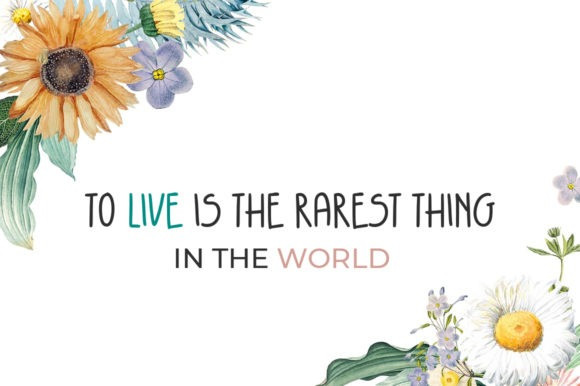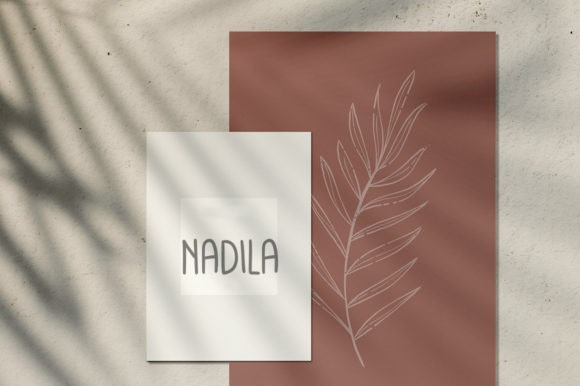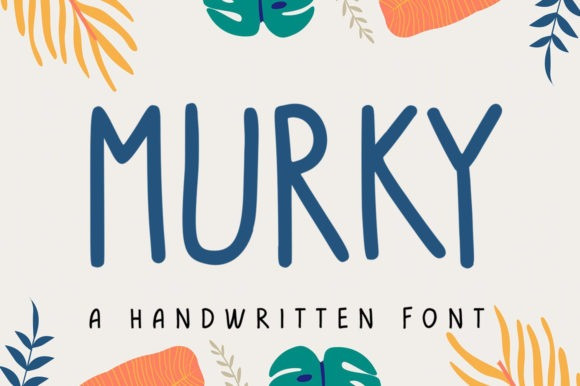
Murky Display Font
Murky is a fun, joyful, tall and friendly handwritten font. This font is perfect for children themed designs, especially when combined with bright colors.